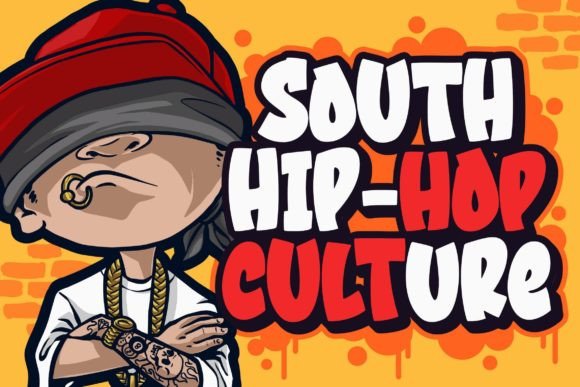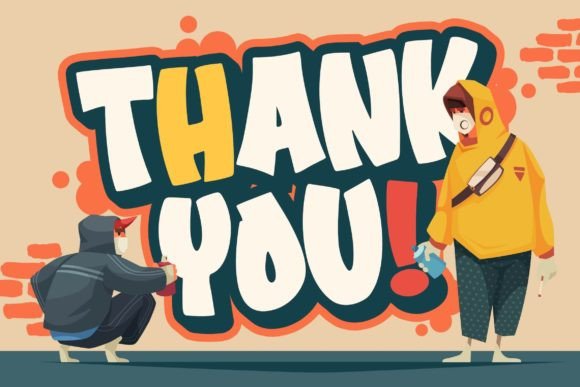
Introducing Crunch Branch: The Ultimate Bold and Bouncy Display Font
Are you a designer or crafter looking for a font that can add a touch of fun and excitement to your projects? Look no further than Crunch Branch, a bold and bouncy display font that’s perfect for a wide range of applications. From book covers and children’s books to comics, posters, packaging, merchandise, and logo design, Crunch Branch is the ideal choice for anyone looking to create something outstanding.
What Makes Crunch Branch So Special?
Crunch Branch is a unique and eye-catching font that’s designed to bring a sense of energy and playfulness to your designs. Its bold and bouncy style is reminiscent of classic comic and cartoon fonts, making it perfect for projects that require a fun and youthful vibe. Whether you’re creating a book cover, poster, or logo, Crunch Branch is sure to grab attention and leave a lasting impression.
One of the best things about Crunch Branch is its versatility. This font can be used for a wide range of projects, including:
- Book covers: Add a touch of excitement to your book covers with Crunch Branch’s bold and bouncy style.
- Children’s books: Kids love fun and colorful fonts, making Crunch Branch perfect for children’s books and educational materials.
- Comics: Crunch Branch’s comic-style aesthetic makes it a natural fit for comics, graphic novels, and other sequential art projects.
- Posters: Create eye-catching posters that grab attention with Crunch Branch’s bold and playful style.
- Packaging: Add some personality to your product packaging with Crunch Branch’s unique and eye-catching font.
- Merchandise: From t-shirts to mugs, Crunch Branch is perfect for creating fun and playful merchandise that stands out.
- Logo design: Use Crunch Branch to create a bold and memorable logo that reflects your brand’s personality.
Why Choose Crunch Branch?
So why should you choose Crunch Branch for your next project? Here are just a few reasons:
- Unique style: Crunch Branch has a one-of-a-kind style that’s sure to set your project apart from the crowd.
- High-quality design: This font is designed with precision and care, ensuring that it looks great in any context.
- Versatile: As mentioned earlier, Crunch Branch can be used for a wide range of projects, making it a great addition to any designer’s toolkit.
Tips for Using Crunch Branch
Here are a few tips for getting the most out of Crunch Branch:
- Use it boldly: Crunch Branch is a bold font, so don’t be afraid to use it in large sizes to make a statement.
- Experiment with colors: This font looks great in a wide range of colors, so don’t be afraid to experiment and find the perfect hue for your project.
- Pair it with other fonts: Crunch Branch can be paired with a wide range of other fonts to create a unique and interesting visual style.